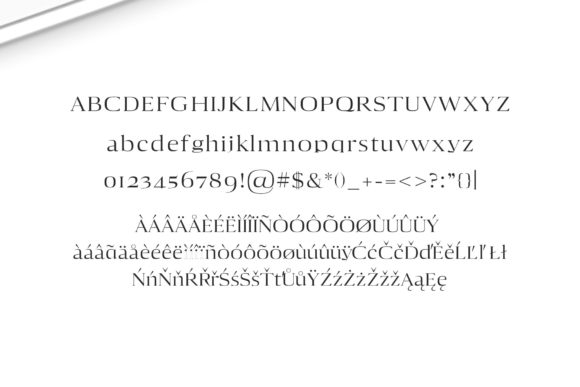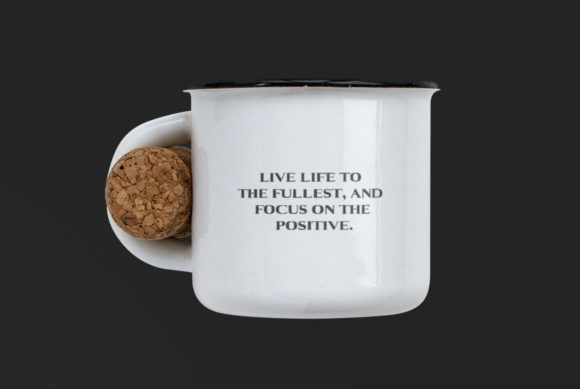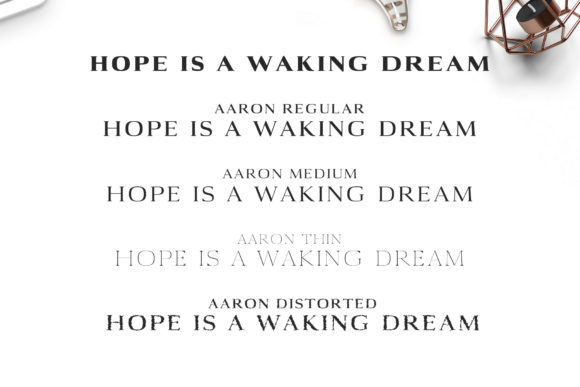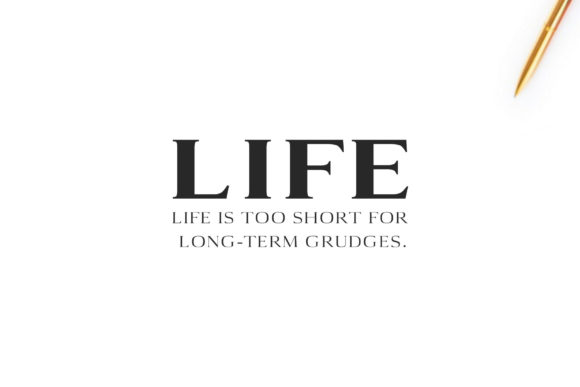
Introduction to Aaron Family Font
Aaron is a clean and modern serif font family that beautifully combines a classy style with a futuristic and solemn look.
Use it for your most creative ideas, and watch how it makes them stand out .
Key Features of Aaron Family Font
Why Choose Aaron Family Font?
Aaron Family Font offers exceptional quality and versatility, making it a valuable addition to your design toolkit. Whether you’re creating for personal projects or commercial use, Aaron Family Font delivers professional results.